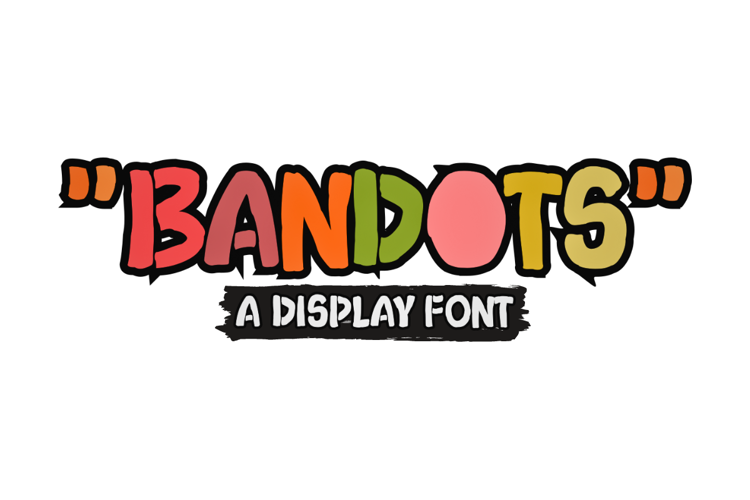
Bandots Font
Bandots is a cool display font with a bit of rough and stencil style. Whether you’re using it for crafts, digital design, presentations, or making greeting cards, this font has the potential to become your favorite go-to font, no matter the occasion.